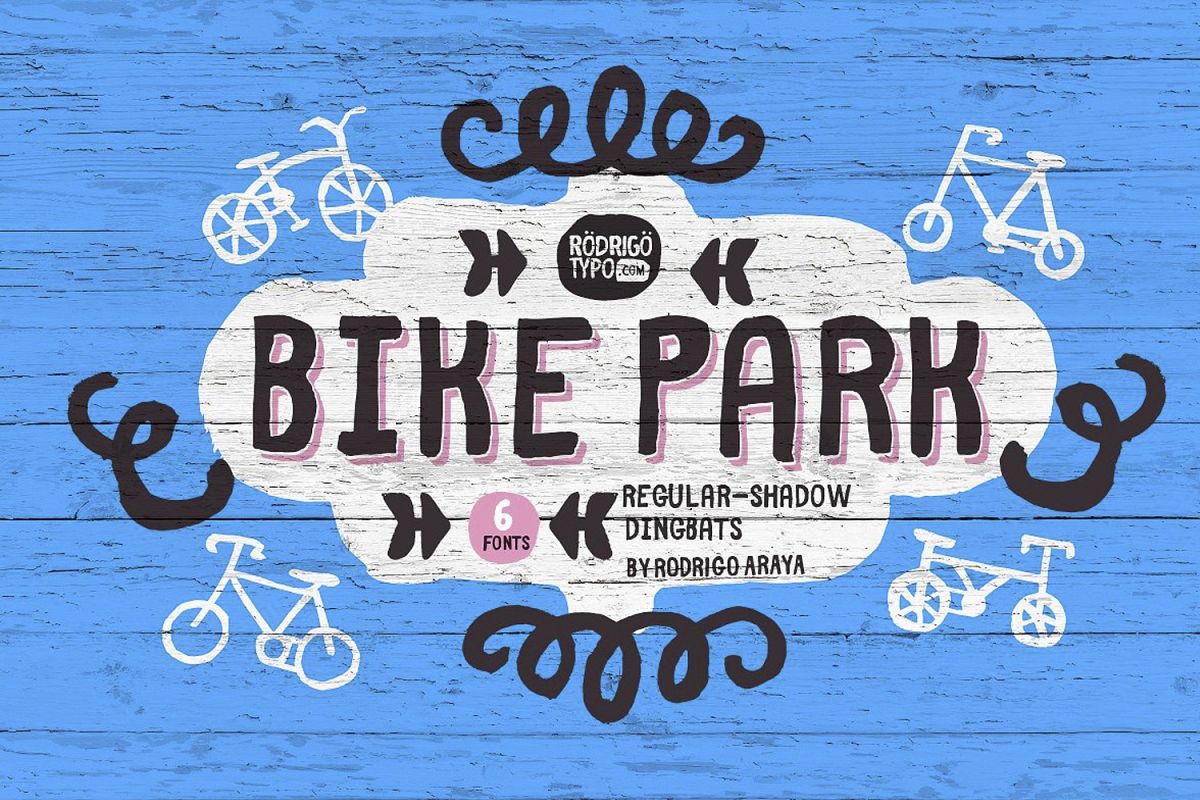
Bikepark
This typography is based and aimed at people who like bicycles and who take life in a relaxed way, contains different alternatives from shadows, ornaments, dingbats.